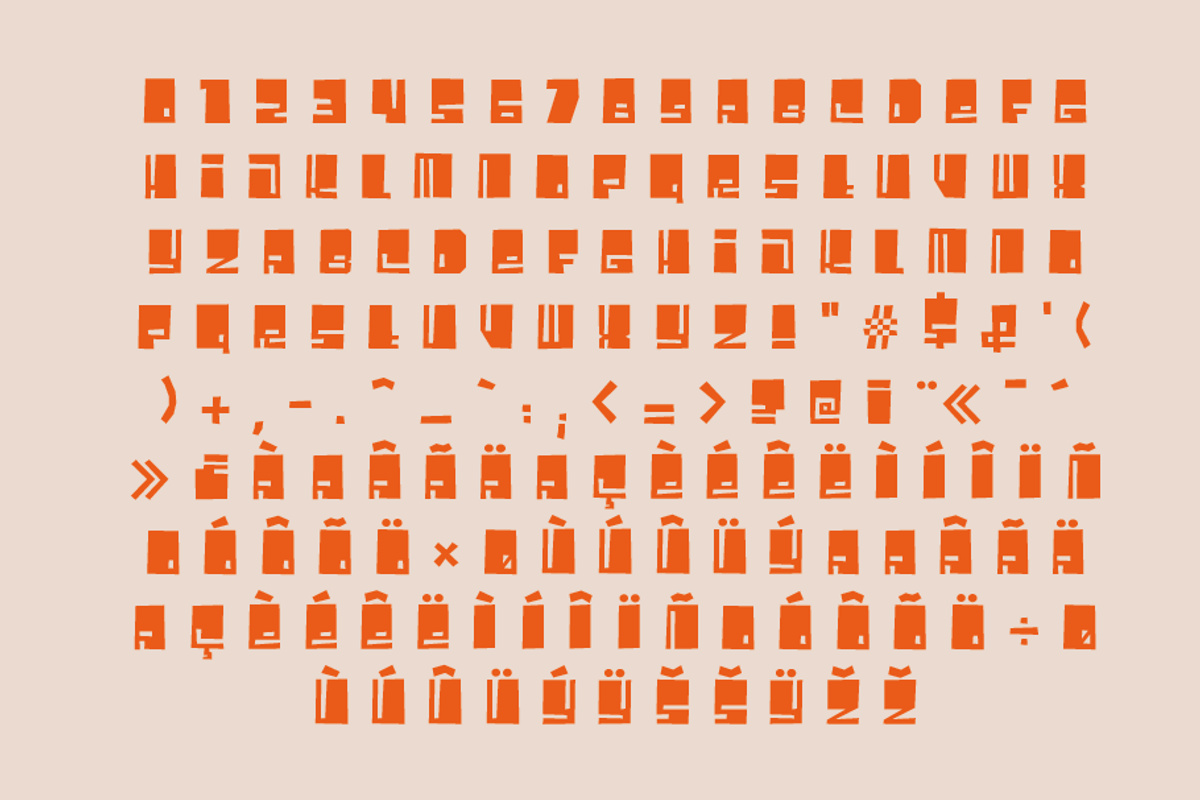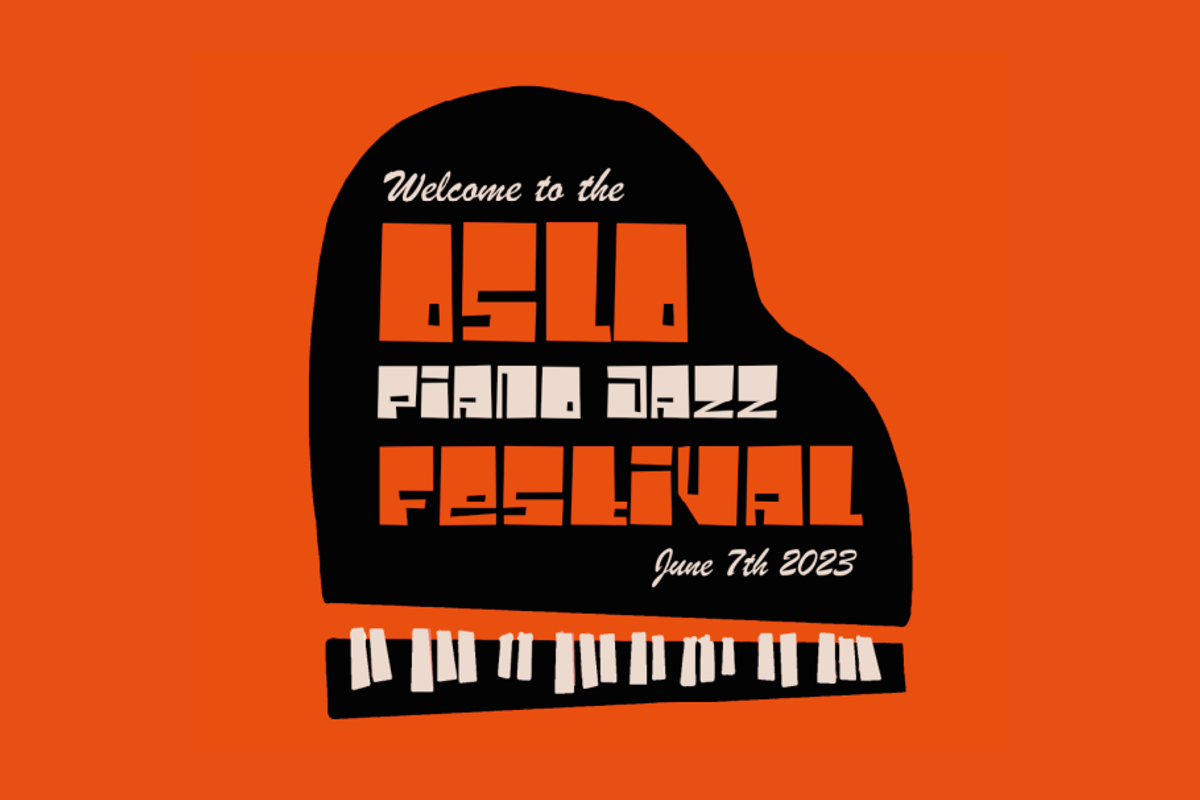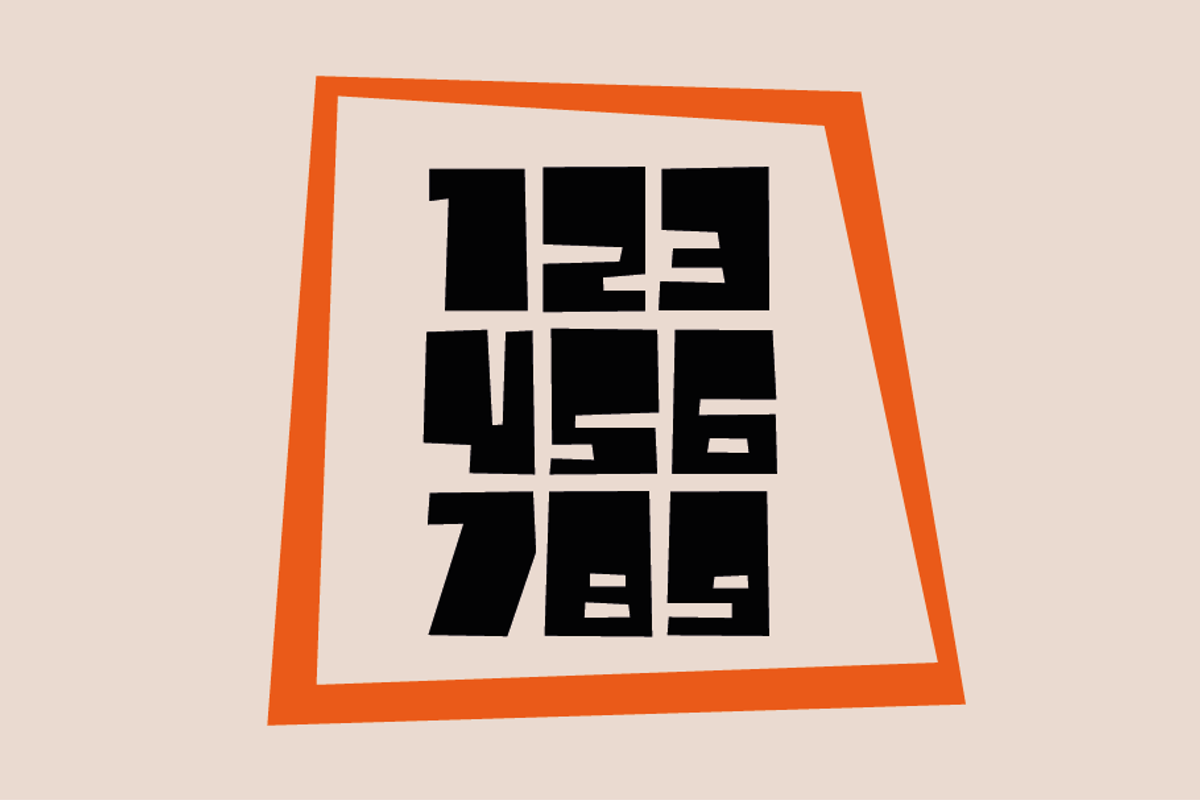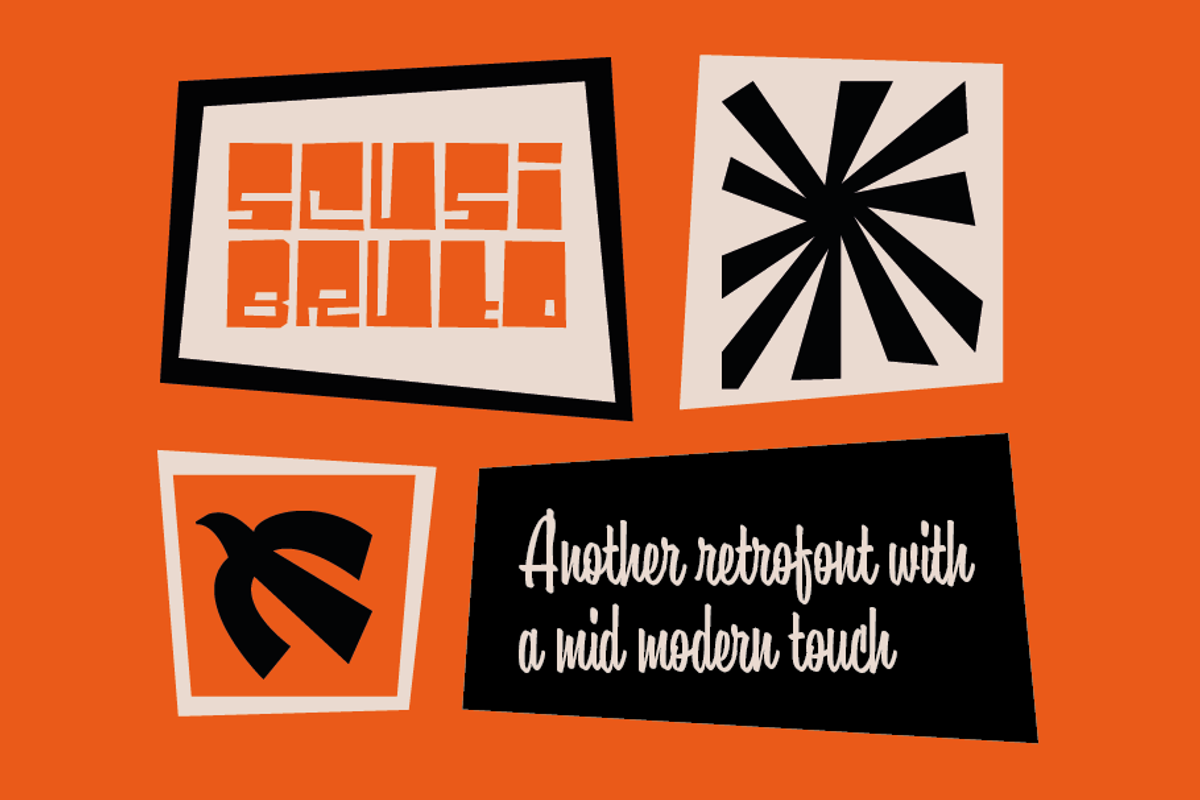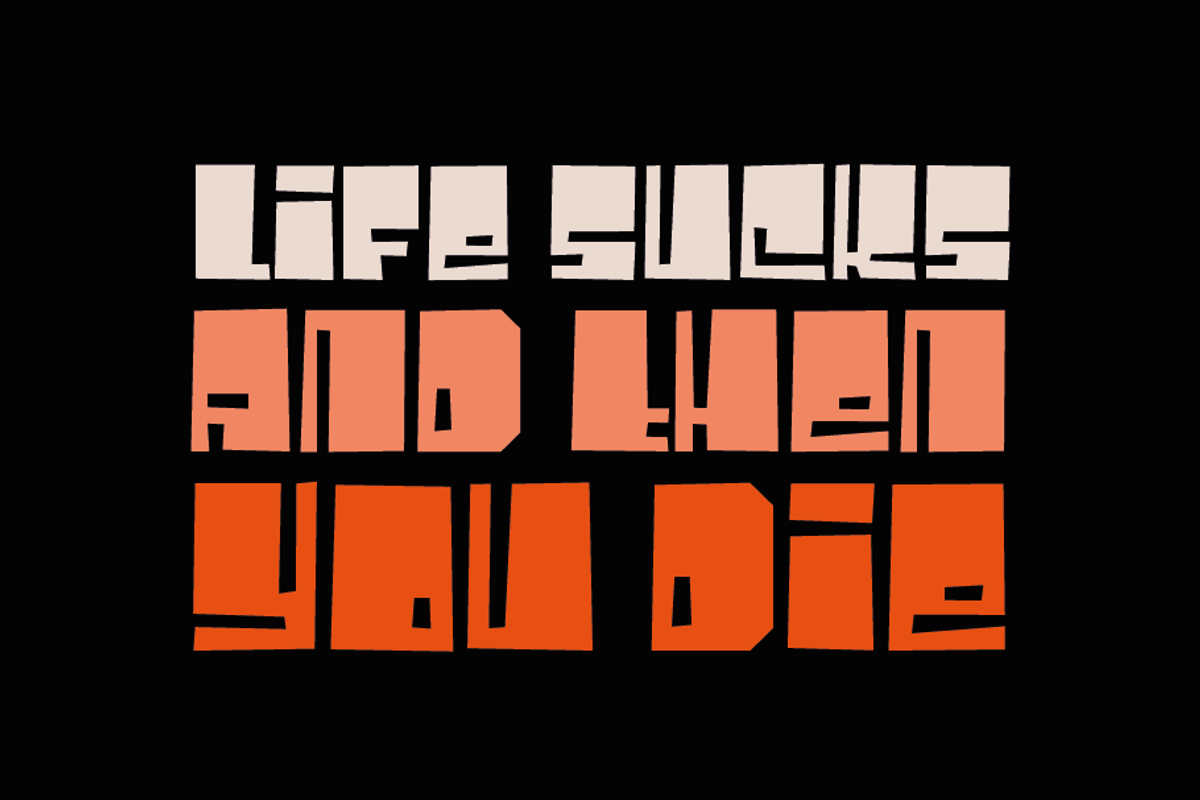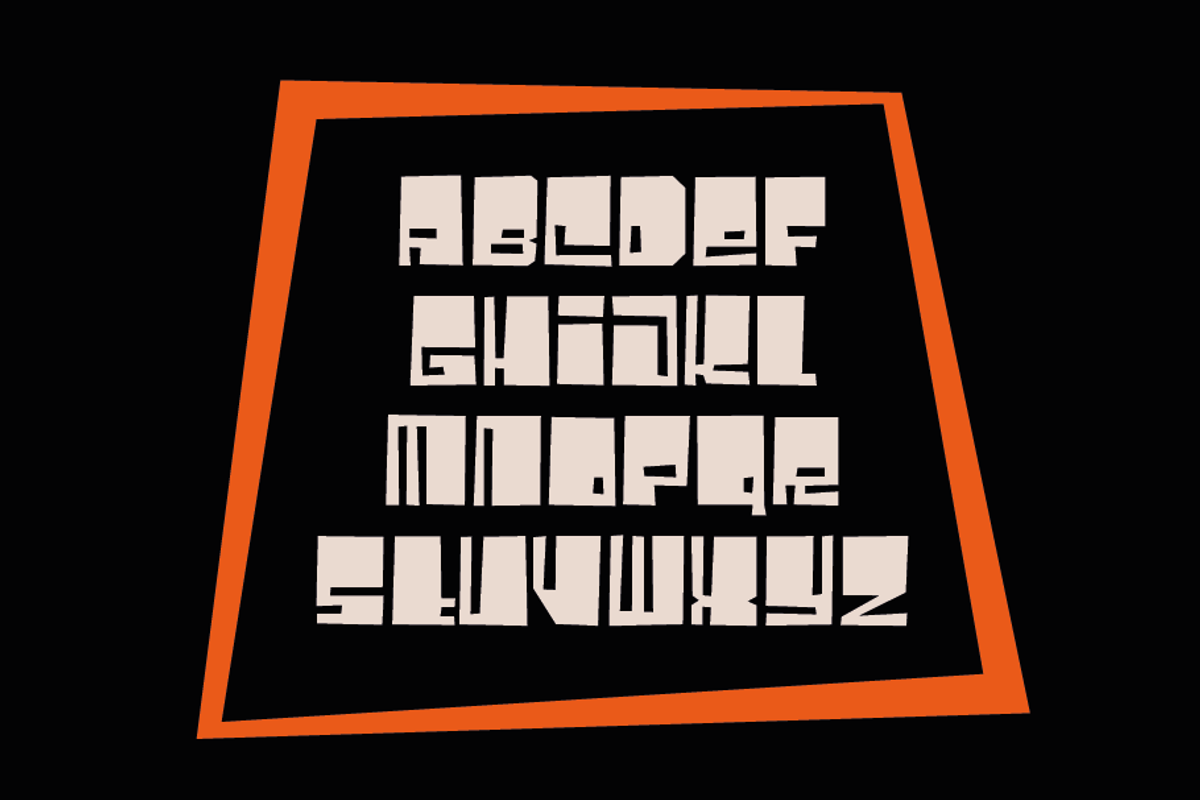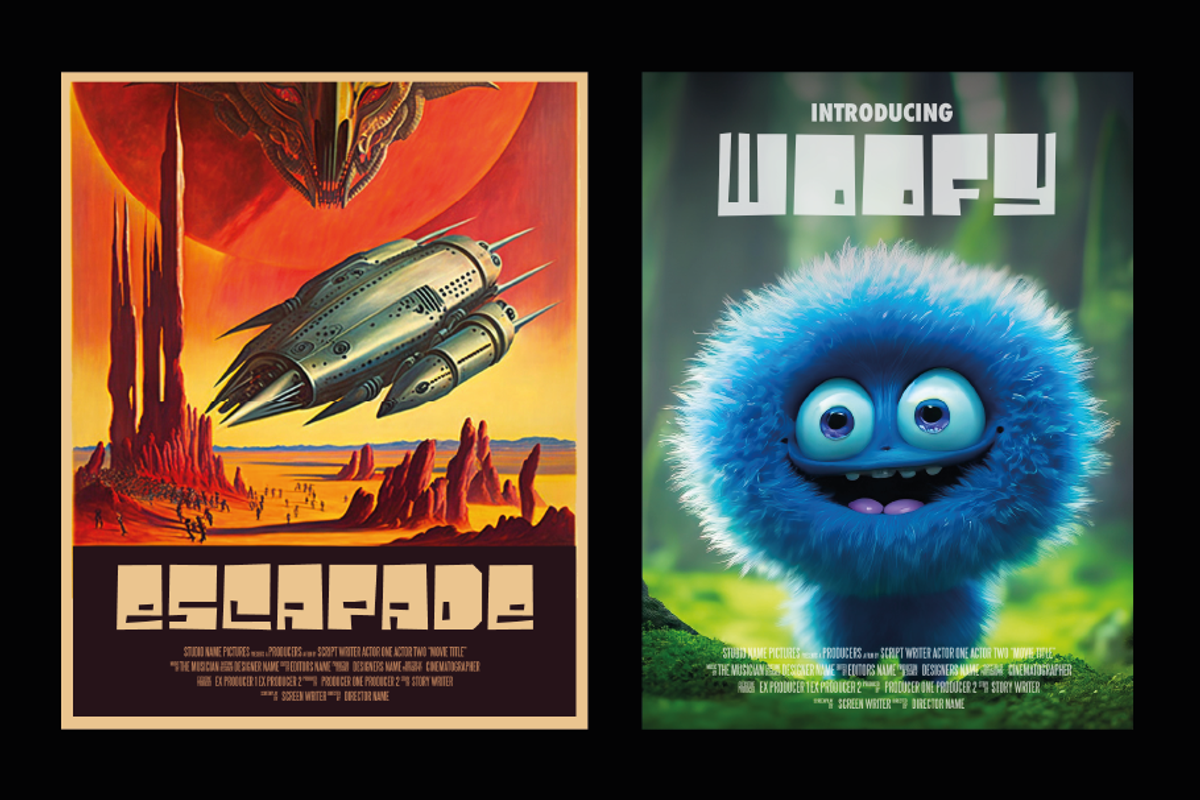
Scusi Bruto is a display font based on Italian movie posters from the 60s and 70s. This is a more straight lined version of Scusi. It reminds us of different styles or period in graphic design like the mid modern century vibe, but also cartoons from the 60/70s, like the ones from Hanna Barbera or just like said above the Italian cinema in the same period, through horror movies, but also western and science fiction. But another good use could be animation movies, like a good Pixar one for example.